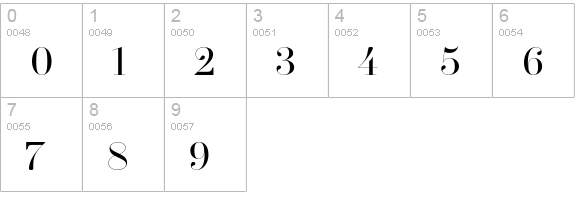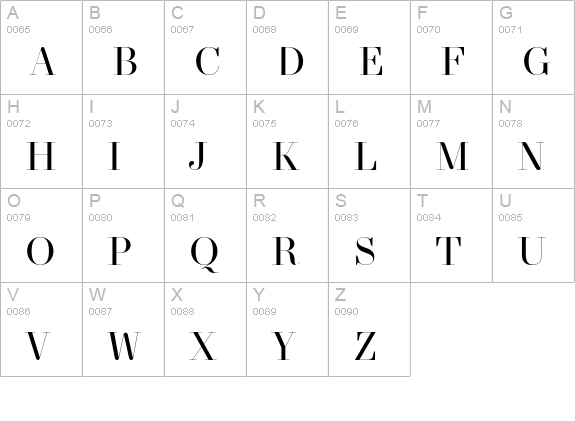
Introducing NewParis KingSize font, a bold and elegant typeface perfect for adding a touch of sophistication to your designs. With its sleek lines and modern aesthetic, NewParis KingSize is sure to make a statement. This versatile font is ideal for various design projects, from logos to branding to packaging. Best of all, NewParis KingSize font is completely free to download at FontsMarket.com. Whether you're a designer looking to elevate your work or a creative enthusiast searching for the perfect font, NewParis KingSize is a must-have addition to your font library. Download it today and unleash your creativity with this stunning typeface.